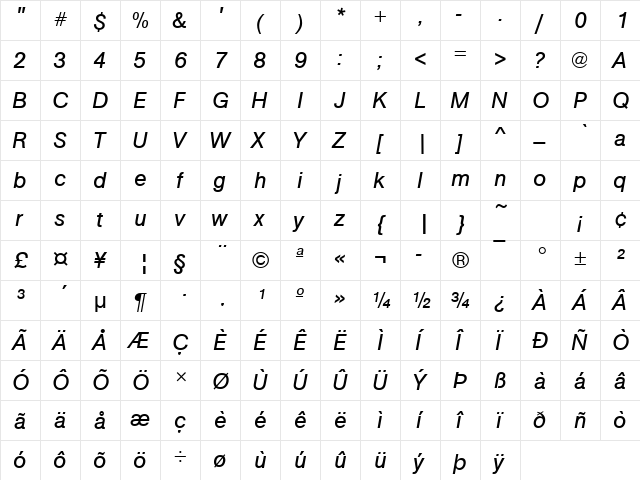
URWAccidaliaBucT Italic
Design Context for URWAccidaliaBucT Typeface
URWAccidaliaBucT offers clean, dependable letterforms without strong stylistic allegiance, making it a practical choice for designers who need flexibility. The slanted form adds forward momentum and visual energy.
Pro Tip: Use URWAccidaliaBucT for emphasis, pull quotes, and subheadings where its slanted energy can add rhythm to the layout.